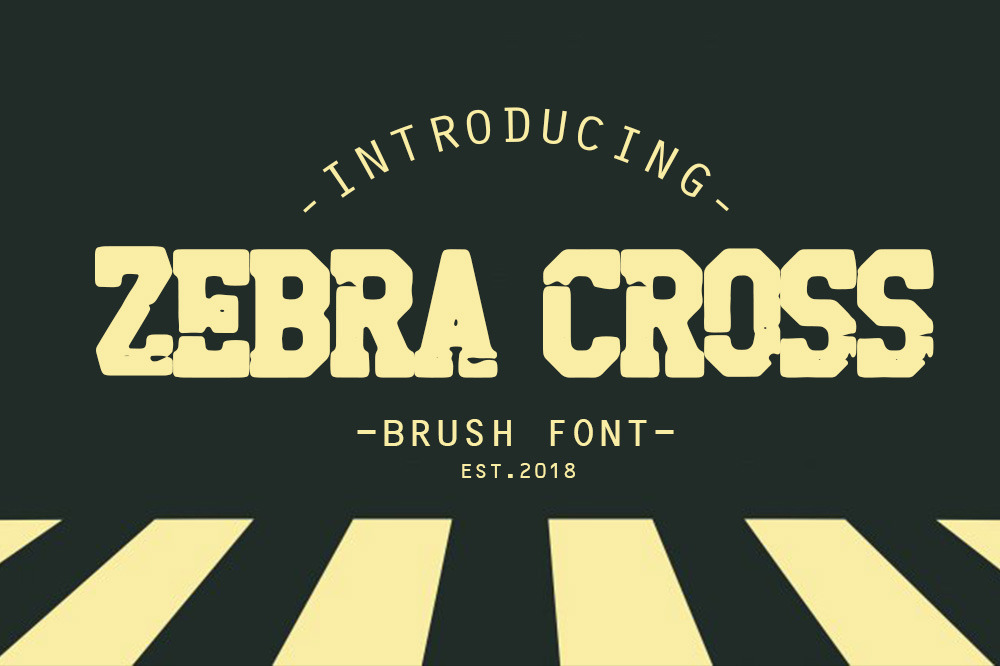
zebra cross brush font
introducing zebra cross brush fonts that are easy to use into various designs. very easy to use and simple. fonts available of uppercase, lowcase, numeral and punctuations and ttf, otf. it is very easy to combine with various other types of fonts, to produce a combination of typography art. enjoy it. thanks.